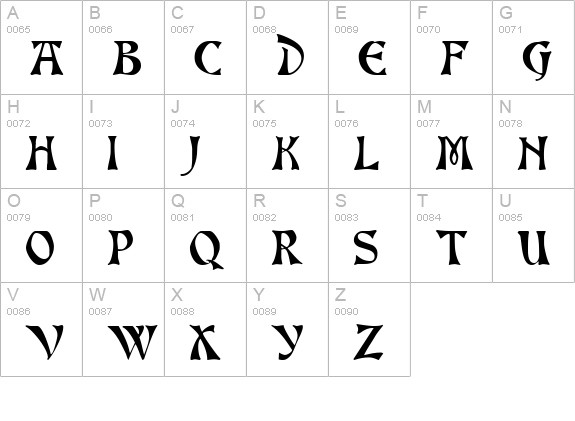
Altenburg™ is a captivating and versatile font that exudes elegance and sophistication. With its classic yet modern design, this typeface is perfect for a wide range of design projects, from branding to editorial design. Its clean lines and subtle curves give Altenburg™ a timeless appeal that will elevate any design it is used in. The best part? Altenburg™ is available for free download at FontsMarket.com. This means you can easily access this stunning font and use it in your projects without any cost. Whether you're working on a print design, website, or any other creative project, Altenburg™ is sure to make a statement and leave a lasting impression. Download Altenburg™ today and take your designs to the next level!